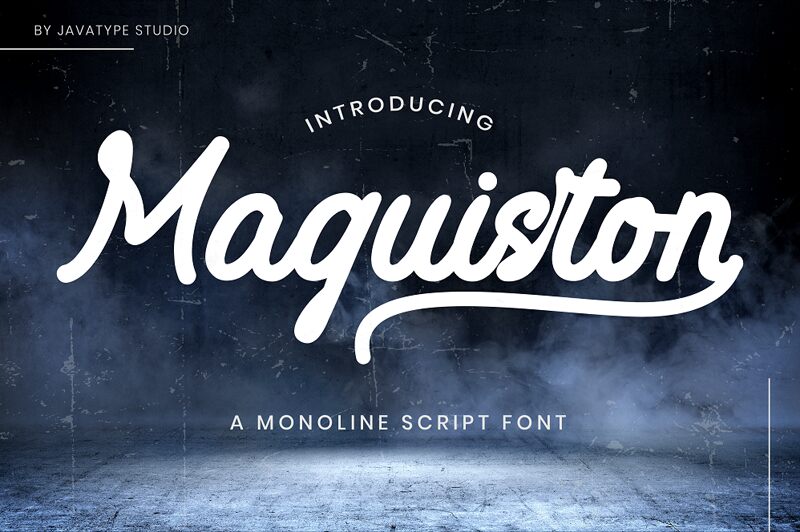
Maguiston Regular
Maguiston, by Javatype Studio, is a stunning semi-light monoline script font that exudes elegance and sophistication. Its smooth and flowing lines are perfect for creating beautiful wedding invitations, feminine branding materials, and romantic designs. With its timeless appeal, Maguiston is also suitable for luxury fashion labels or high-end beauty products. The versatility of this font makes it a great choice for any project that requires a touch of refinement and class. Maguiston's graceful curves and delicate strokes are sure to capture the attention of your audience while conveying your message with style.